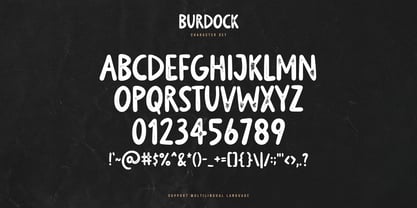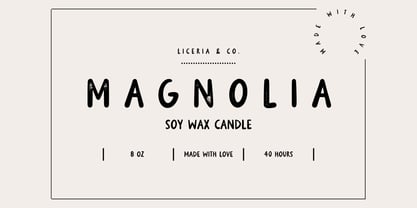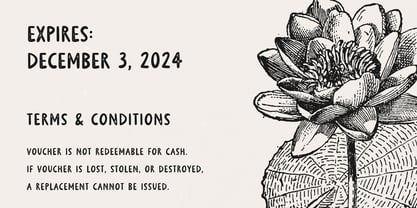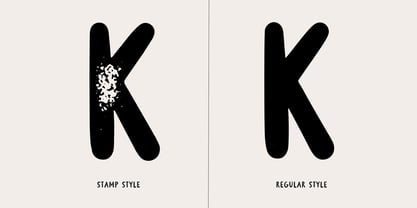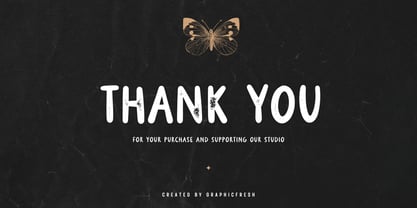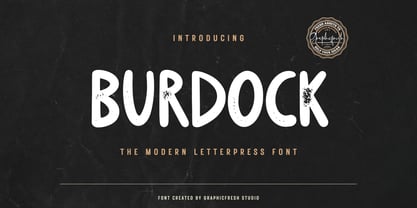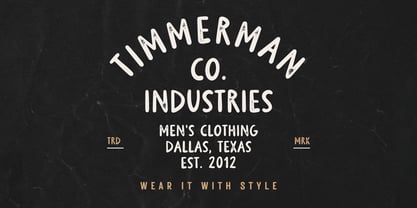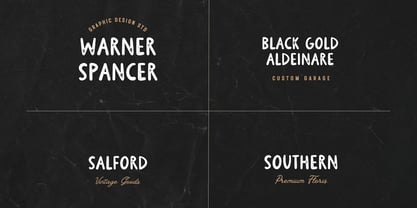
Burdock
by Graphicfresh
The Burdock Font Family was designed by Muhammad Husni Haikal and published by Graphicfresh. Burdock contains 4 styles and family package options. More about this family
Introducing our Contemporary Handwritten Sans Serif Font, a perfect fusion of modern design and vintage flair. This font features the effortless elegance of sans serif combined with the personal touch of handwritten style, making it a unique choice for various design needs. Its letterpress-inspired look adds a hint of nostalgic charm, ideal for projects that aim to stand out with a blend of old and new.
Designers: Muhammad Husni Haikal
Foundry: Graphicfresh